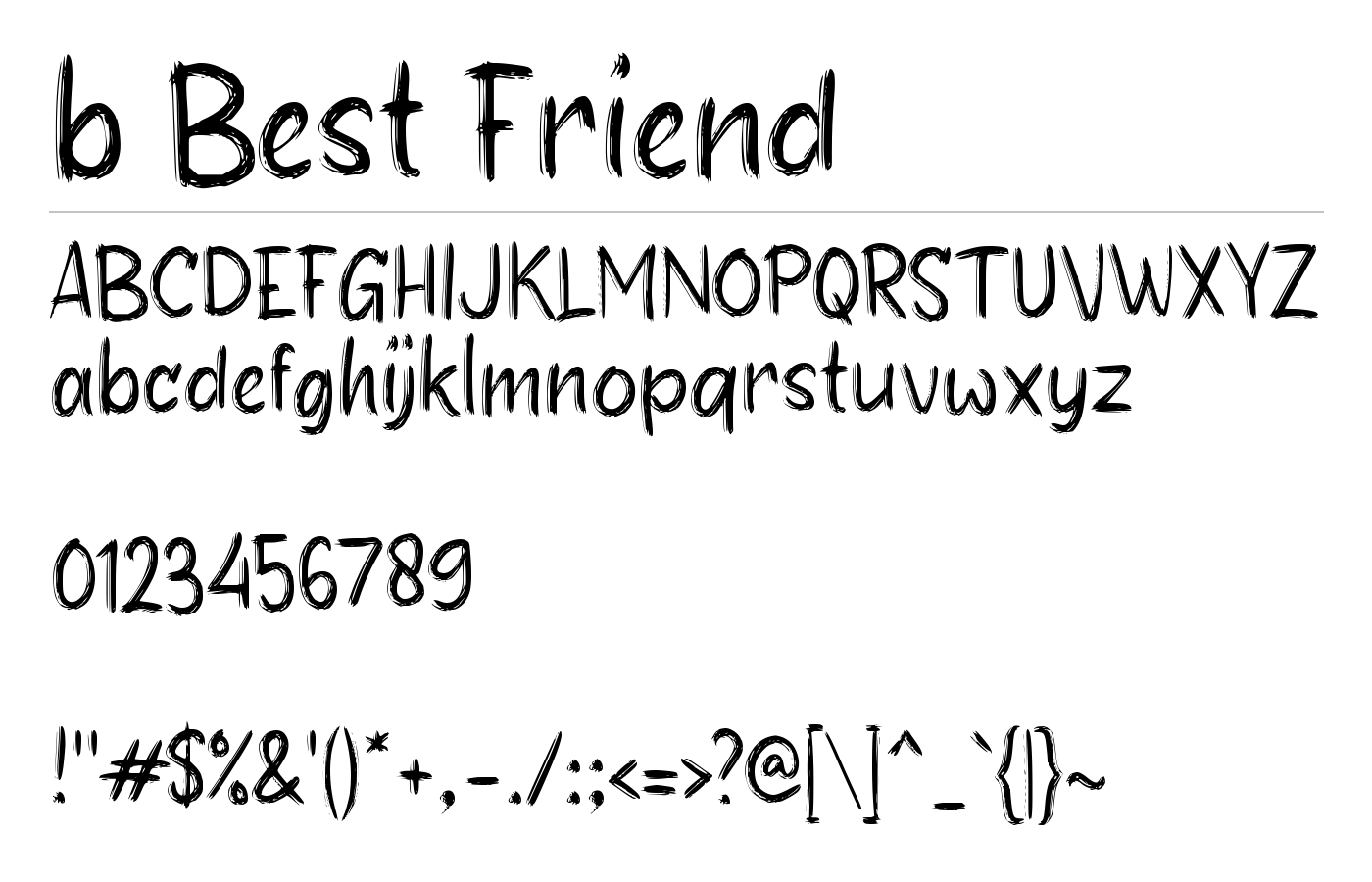
b Best Friend Font is a playful and casual handwritten sans serif with a textured, brush-like stroke that adds a lively, artistic touch. Its irregular and slightly rough edges create an informal, friendly vibe, making it ideal for creative projects, children's materials, or branding that wants to feel personal and approachable. This font works well in headlines, invitations, and fun packaging, bringing warmth and energy to any design.
b Best Friend Font
About b Best Friend Font
| Font family | b Best Friend Font |